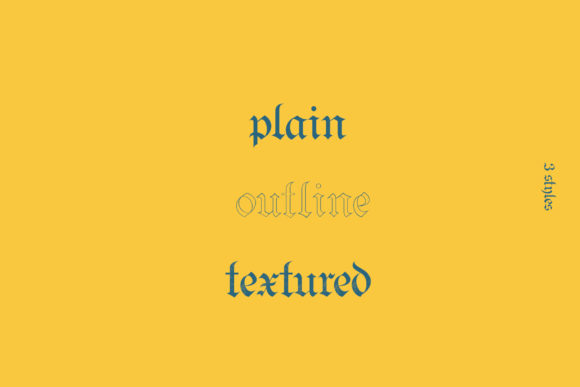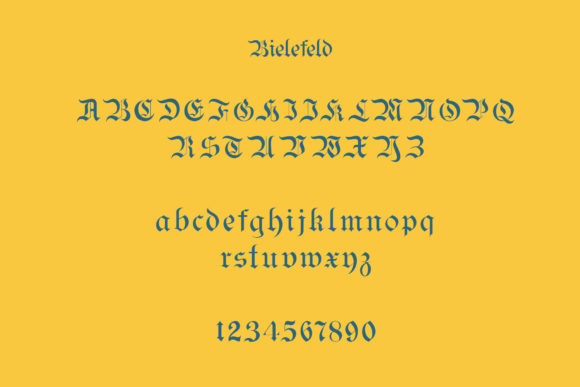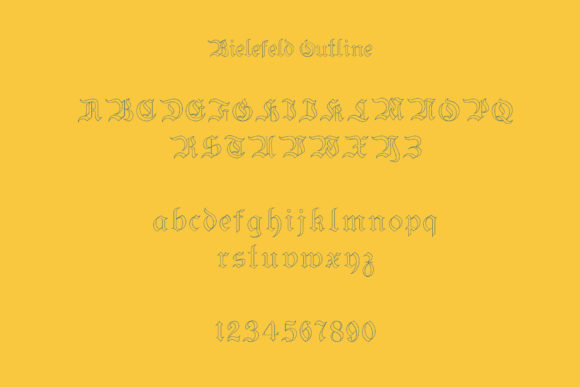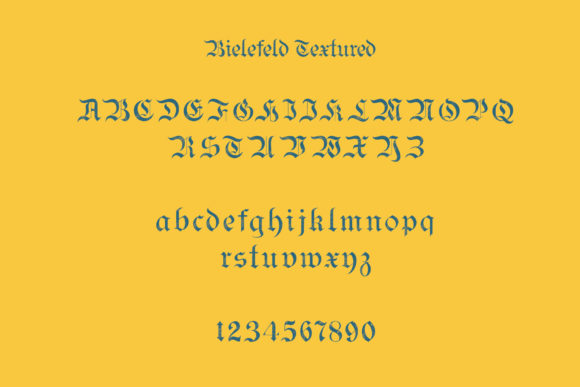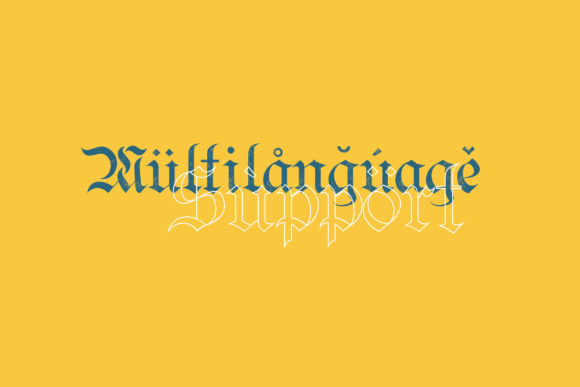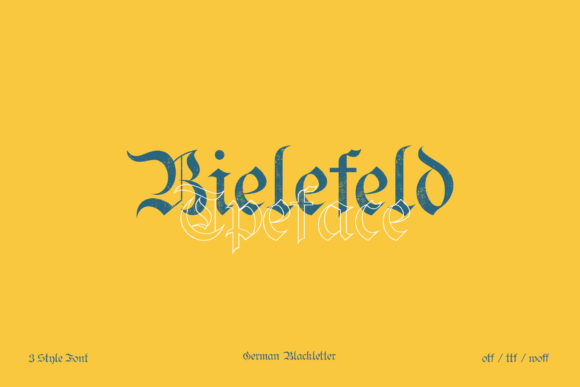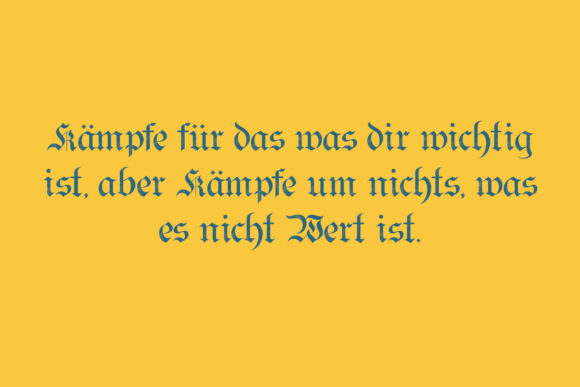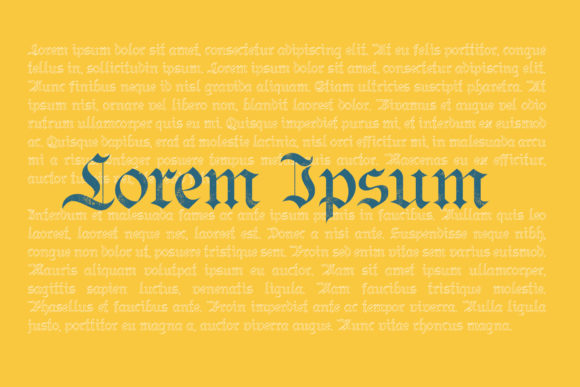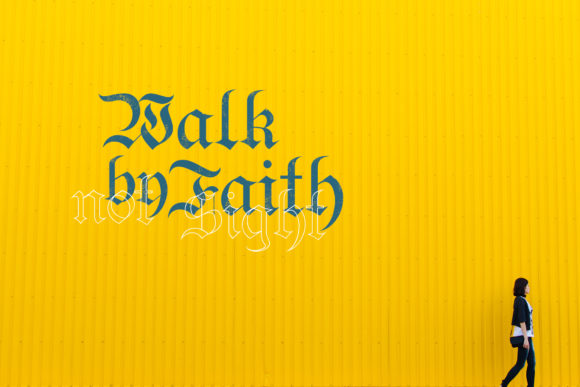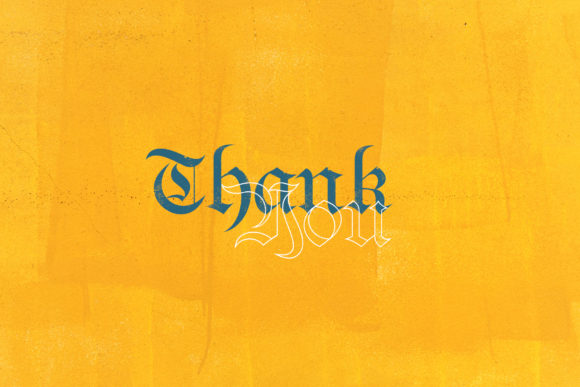
Bielefeld Font
About Bielefeld Font
Bielefeld is a classic and sophisticated blackletter font with a bold feel. It will add a medieval twist to any design idea!